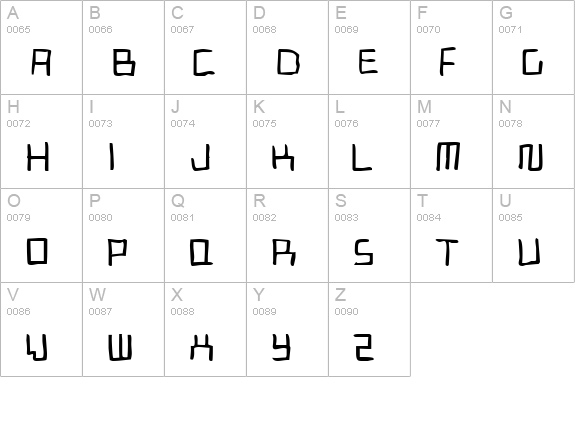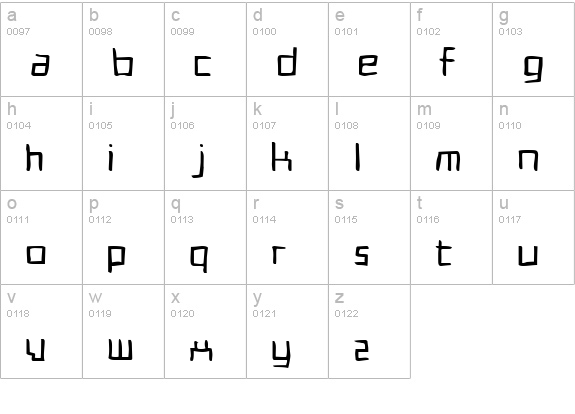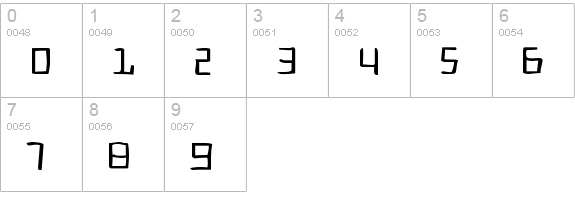
Cadmium Egg Font Details
Cadmium Egg is a unique and eye-catching font that will add a touch of creativity to any design project. With its bold and modern style, Cadmium Egg is perfect for headlines, logos, posters, and more. This font features a striking combination of sharp edges and smooth curves, giving it a dynamic and contemporary look. The best part about Cadmium Egg font is that it is completely free to download at FontsMarket.com. Whether you're a graphic designer, a blogger, or just someone looking to spice up their projects, this font is a must-have in your collection. Don't miss out on the opportunity to add Cadmium Egg to your font library today!